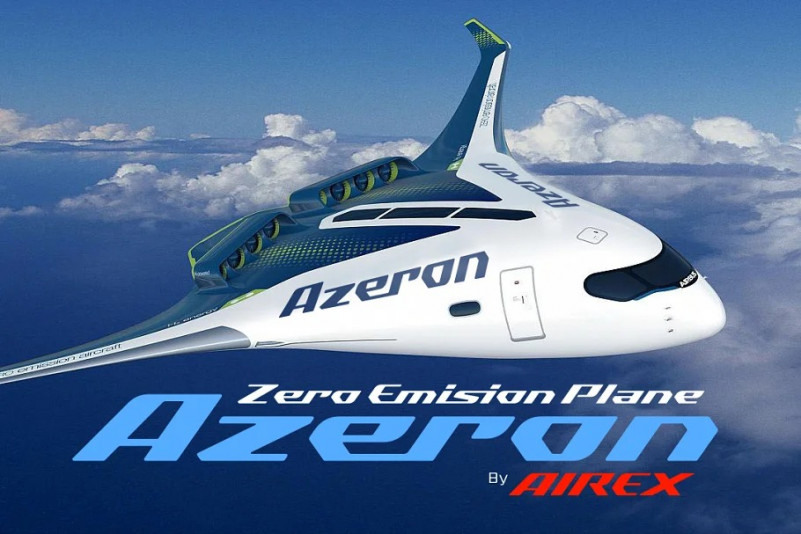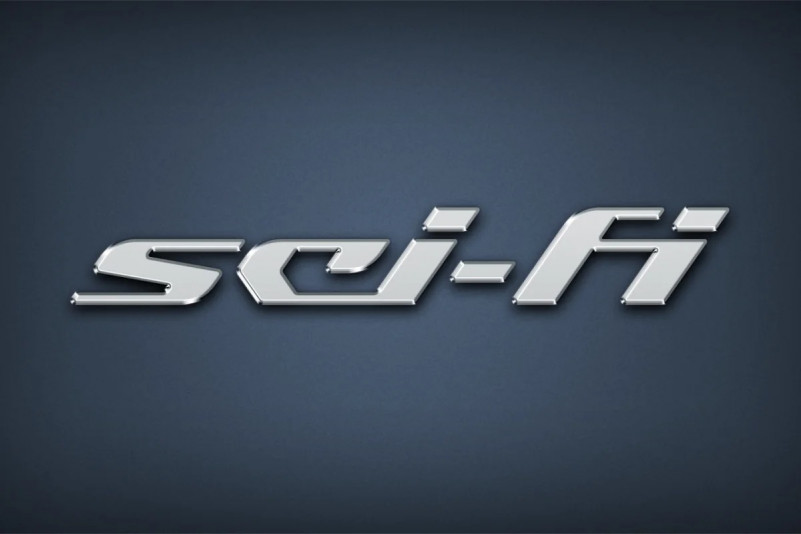
Demachina Display Font
Demachina is a modern and futuristic display font. It features a unique style that makes it perfect for logos, games, book covers and every project that requires a futuristic look!